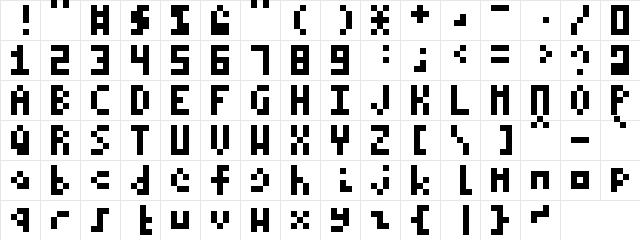
itty Regular
Design Context for itty Typeface
itty is a composed and adaptable typeface that performs quietly and consistently across a wide range of design contexts.